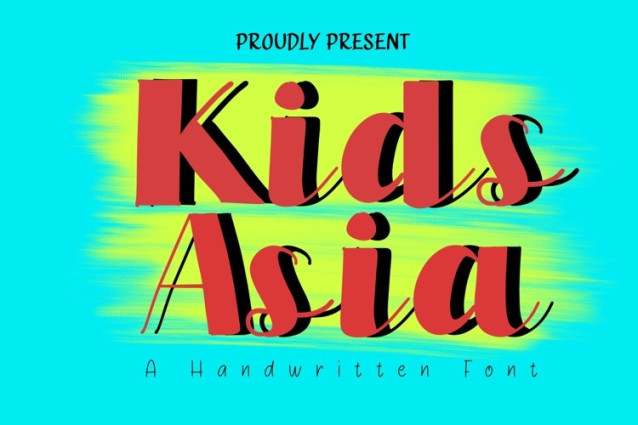
Kids Asia Font
Kids Asia Font, it would be a perfect choice to design posters, affiches, logos, t-shirt and magazine prints, eye-pleasing typographic designs and more.